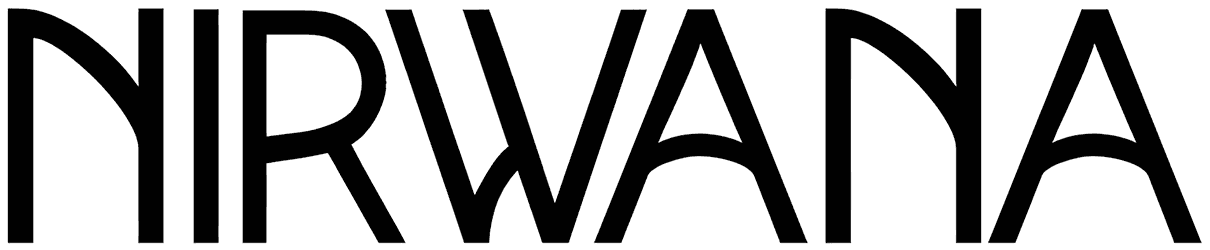
Nirwana Font
You may use Nirwana, a basic and clean sans-serif font, for a variety of creative tasks. This yoga font will lend an air of professionalism and serenity to your next marketing campaign, website, or company report.
Nirwana is an easy-to-use, trustworthy font with a simple yet elegant style. Nirwana is available for download from RB’s font store right now; if you want your design work to have more calmness and clarity, don’t forget to get it!